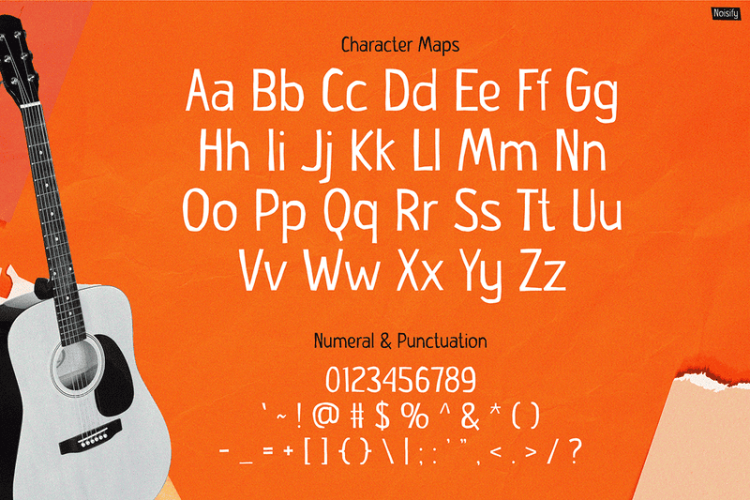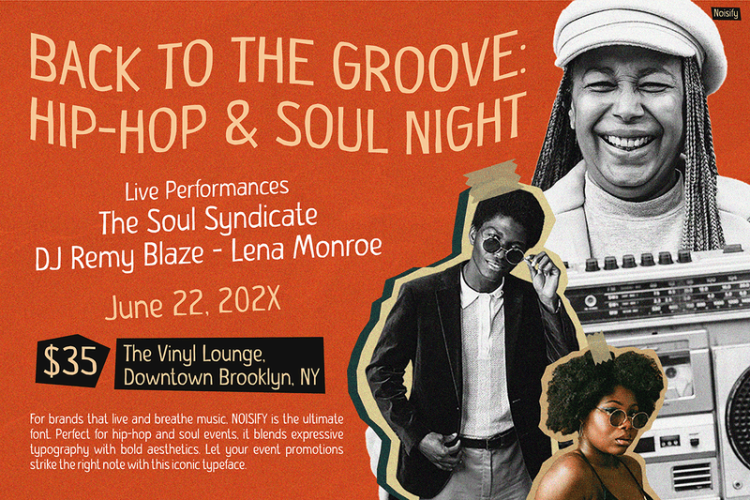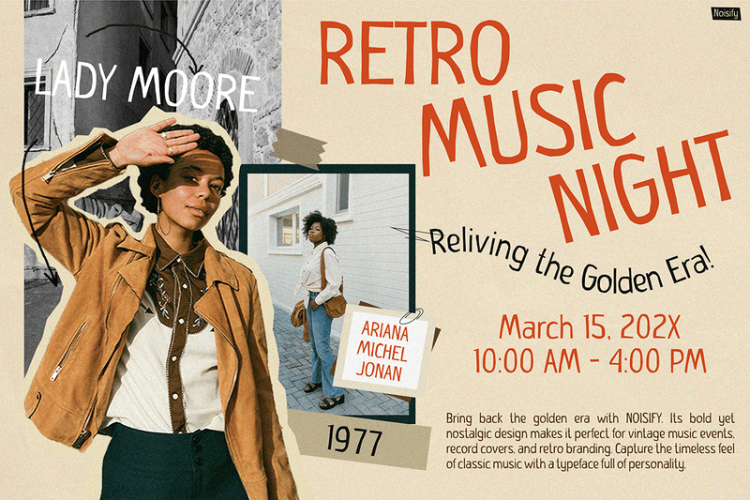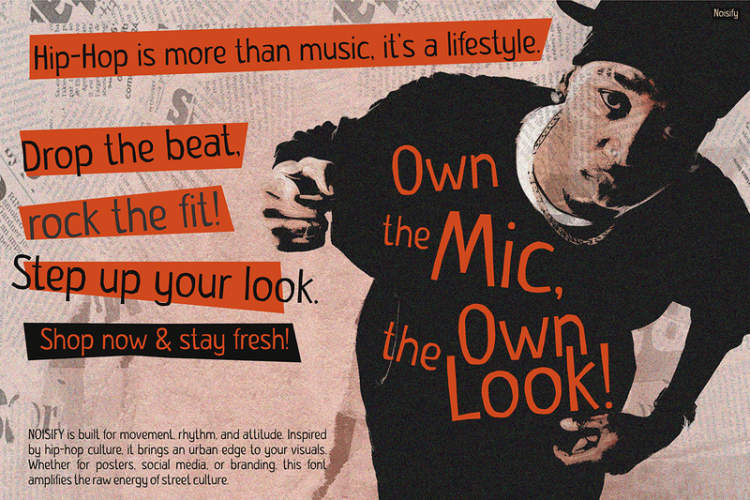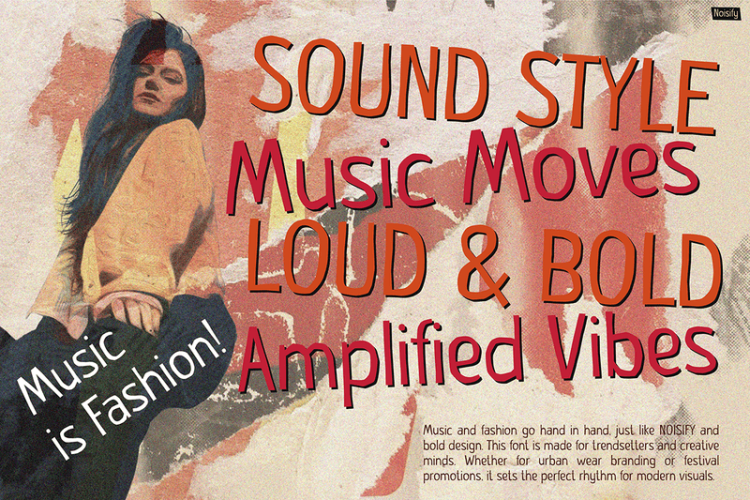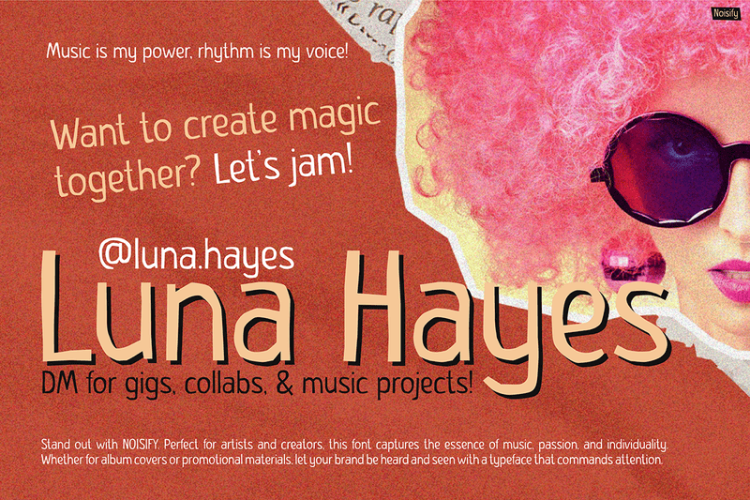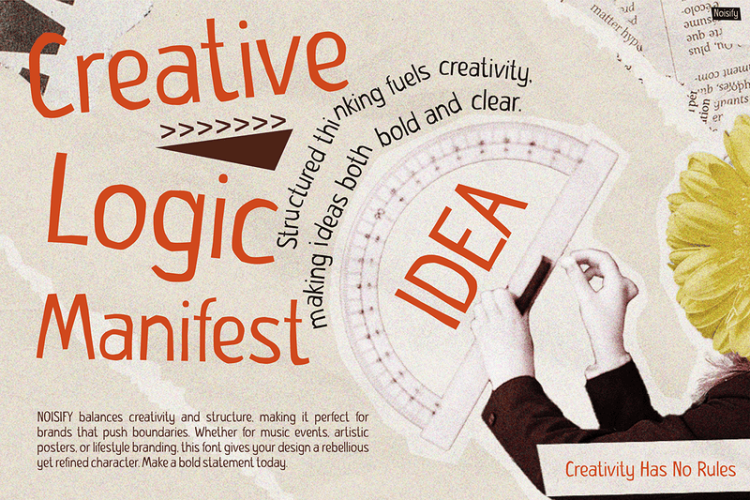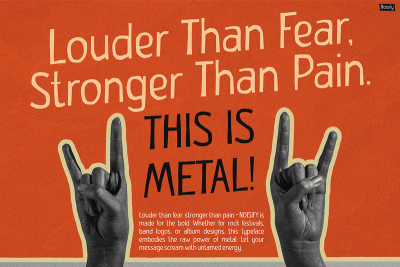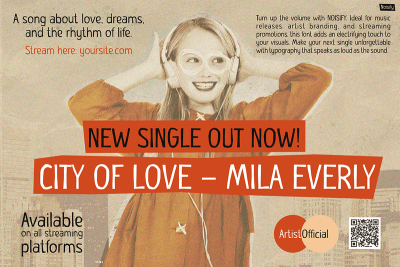
Music Font Noisify is a bold, dynamic typeface that truly embodies rhythm, movement, and street culture. Inspired by hip-hop and urban aesthetics, it instantly adds energy to your visuals. With hand-drawn, slightly irregular strokes, Noisify exudes a raw, expressive personality. As a result, it makes every design feel authentic and alive.
Designed for impact, Noisify effortlessly blends graffitiโs rebellious spirit with handwritten typography. Its imperfect yet intentional strokes enhance self-expression, making it perfect for creatives seeking energy, authenticity, and boldness. Furthermore, its high contrast and edgy shapes ensure every word stands out. Consequently, your message will resonate powerfully with the audience.
Whether youโre designing posters, social media content, apparel branding, or album covers, Music Font Noisify helps create a strong identity. More than just a font, itโs a voiceโloud, unapologetic, and full of character.
Who Should Use Music Font Noisify?
โ Music Artists & Event Promoters โ Noisify adds energy to album covers, concert posters, and festival branding. Since it visually represents musicโs rebellious and expressive nature, it works especially well for hip-hop, rock, and electronic projects.
โ Streetwear & Fashion Brands โ Urban fashion thrives on attitude, and Noisify delivers exactly that. Whether you use it for clothing labels, logos, or packaging, it instantly enhances the brand with a bold, street-style aesthetic.
โ Graphic Designers & Content Creators โ Perfect for posters, YouTube thumbnails, and digital ads, Noisify grabs attention effortlessly. Because of its raw, artistic look, it works well in both digital and print media, making it highly versatile.
โ Hip-Hop & Urban Culture Enthusiasts โ If you want to elevate social media campaigns or merchandise, Noisify is the right choice. It speaks the language of the streets, giving every project a rebellious and free-spirited vibe.
โ Branding & Marketing Experts โ Noisify helps brands stand out in advertising, packaging, and promotional materials. Its unique shape naturally commands attention, ensuring a lasting impression on the audience.
In conclusion, Music Font Noisify is more than just a typefaceโitโs a statement. If you want your designs to be bold, expressive, and full of rhythm, Noisify is the perfect choice!